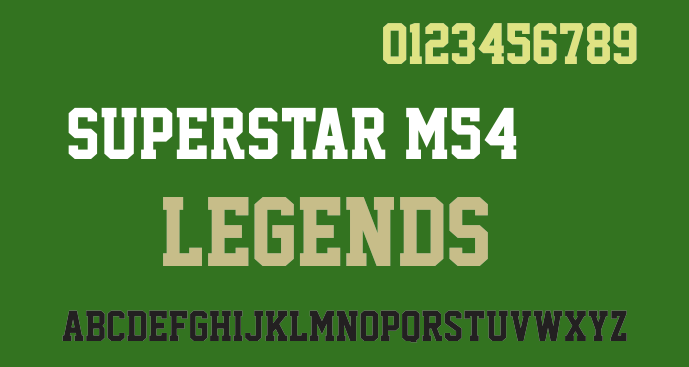
Font name: | Superstar M54 |
My version of the classic atletic type slab serif. Ideal for apparel design and numbering sports jerseys. The upper and lower case 'S' and 's' are different, the lower case one being more traditional for this style of font. The left and right curly brackets hold alternate glyphs for numbers '2' and '5'. If you find this font useful then please consider a donation to justme54s[at]yahoo.co.uk, any amount will be greatly appreciated. A donation isn't necessary to use this font for personal or non-commercial use. I'll be interested to know how people use it so a picture or artwork sent to justme54s[at]yahoo.co.uk would be nice. If you wish to use this font commercially a donation or license is required, please email for further information. Alternatively, for one time commercial use just send details of usage along with your donation so that a return email can be sent as proof of rights to commercial usage. Usage Agreement You may not host this font anywhere online as it is hosted exclusively at FontSpace.com and Dafont.com. Any links for downloads should be directed to FontSpace or Dafont. You may share the font electronically but the Zip file should remain intact with the font alongside all other files as packaged. You may not sell this font, but are allowed to distribute it freely i.e. in magazines. |